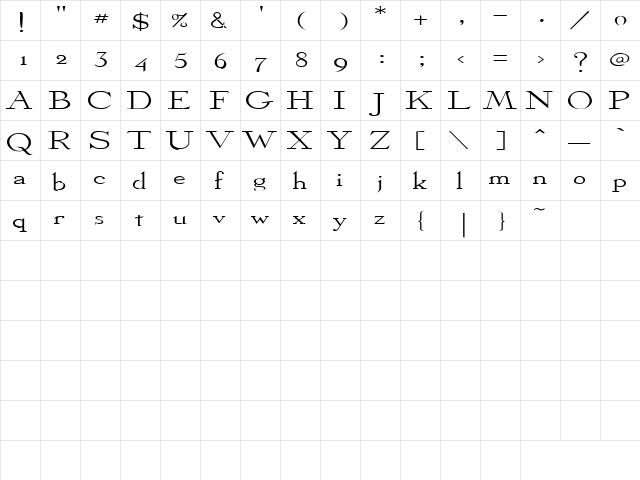
Pandora's Box 2 Regular
Design Context for Pandora's Box 2 Typeface
Pandora's Box 2 is a composed and adaptable typeface that performs quietly and consistently across a wide range of design contexts.